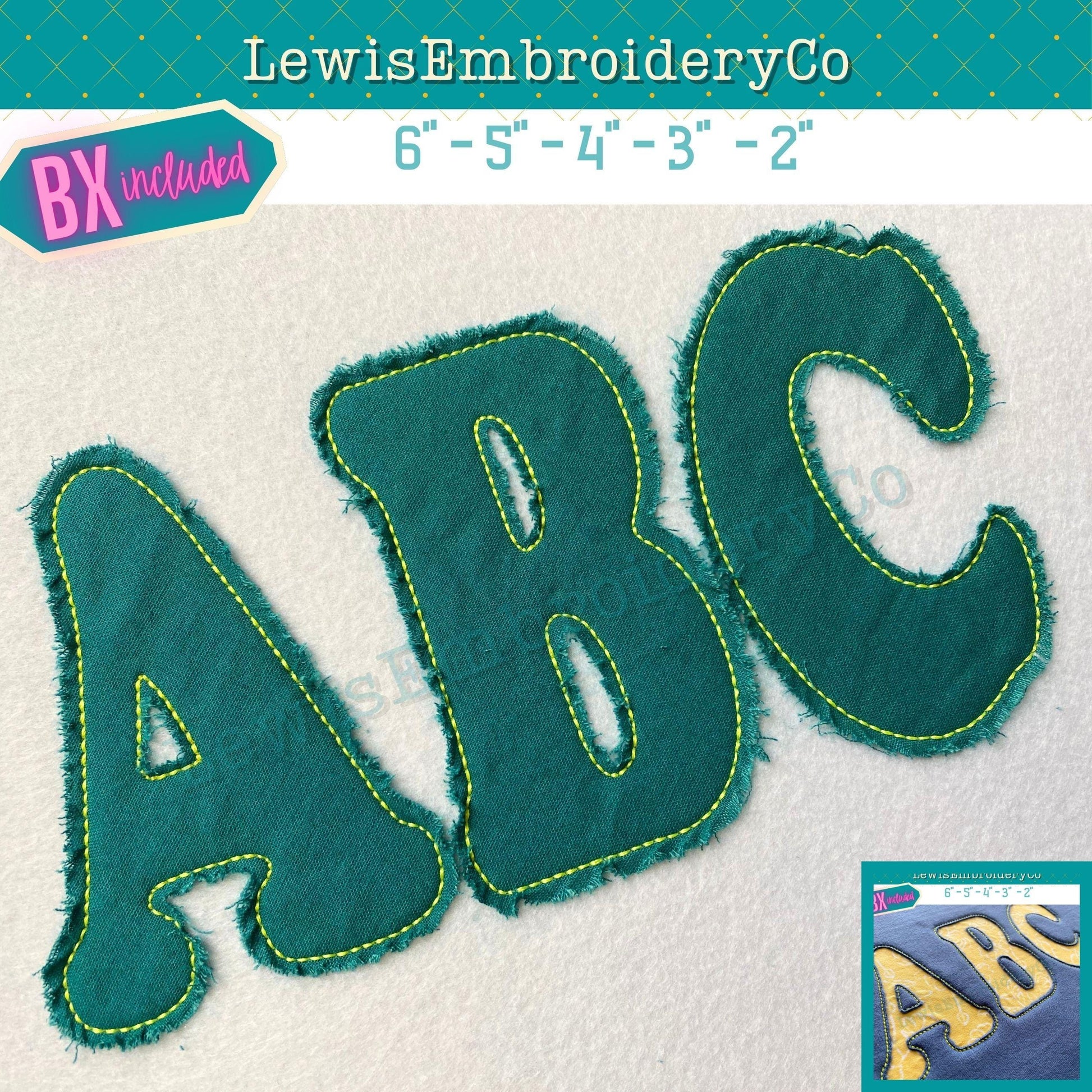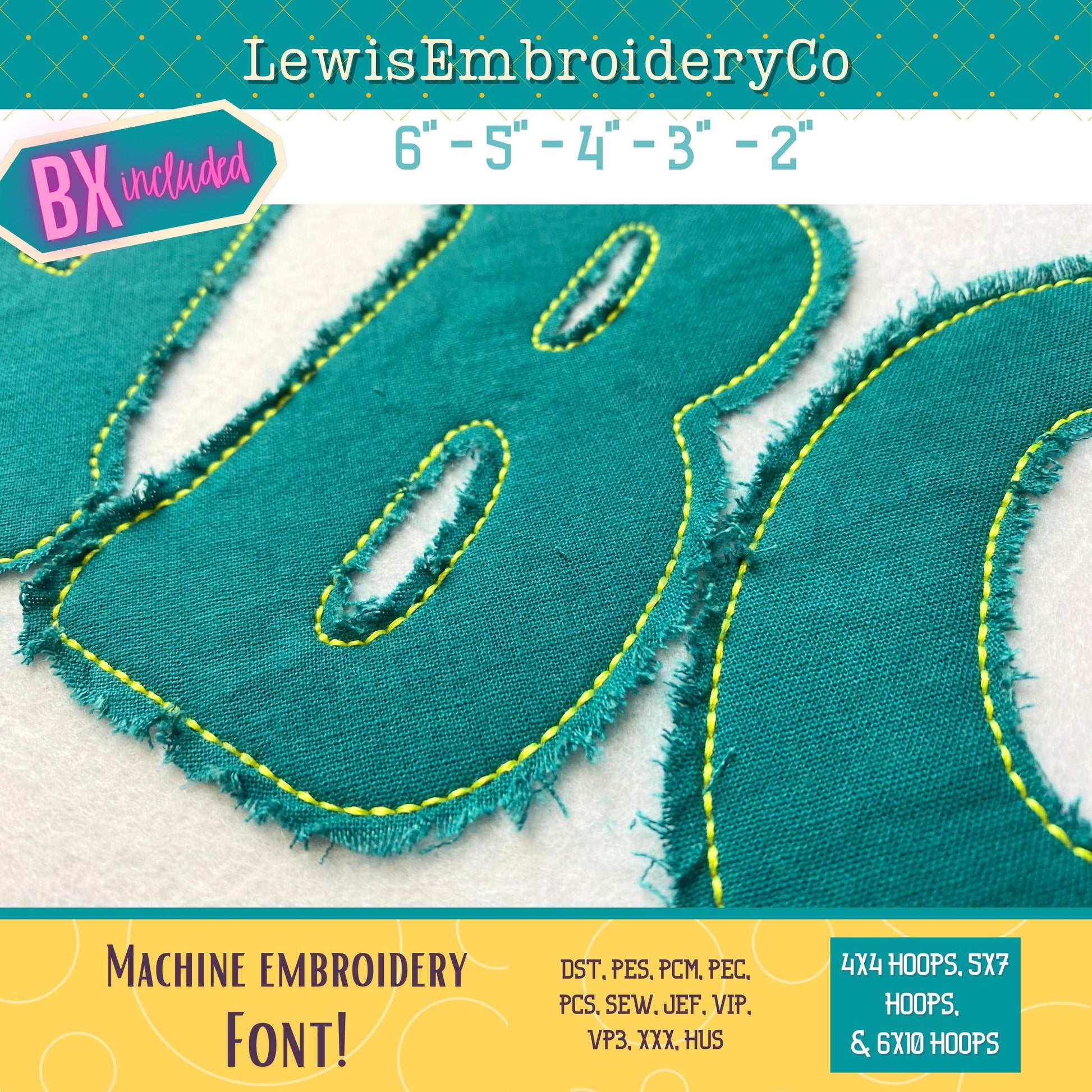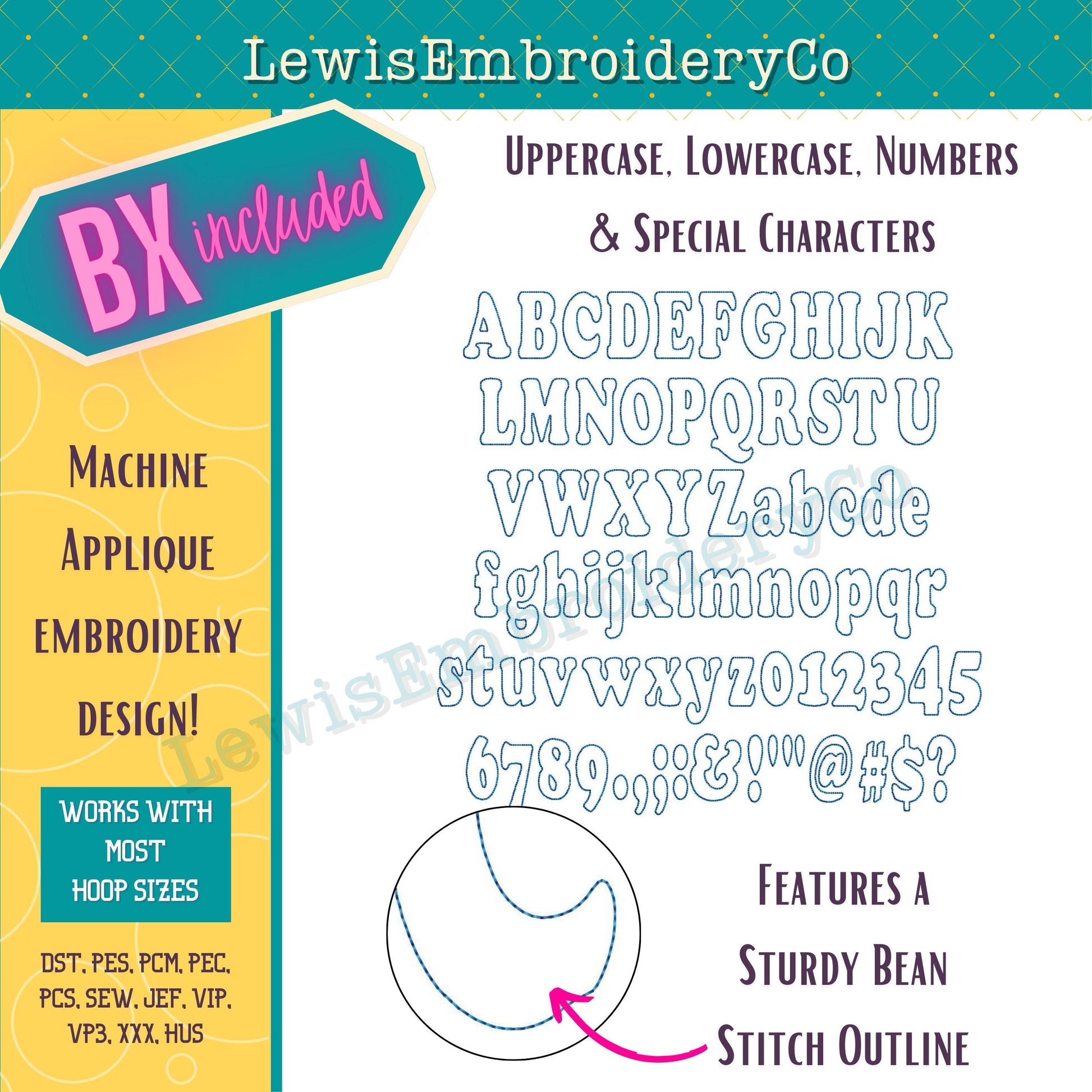
Raggy Applique, Narrow, Machine Embroidery Font - With BX - (PDF Tutorial Included)
Raggy Applique Embroidery Font - Narrow Cooper Applique Font - Raw Edge Applique Alphabet - Bean Applique Embroidery Font
This fun font will add a nice touch to any of your projects!